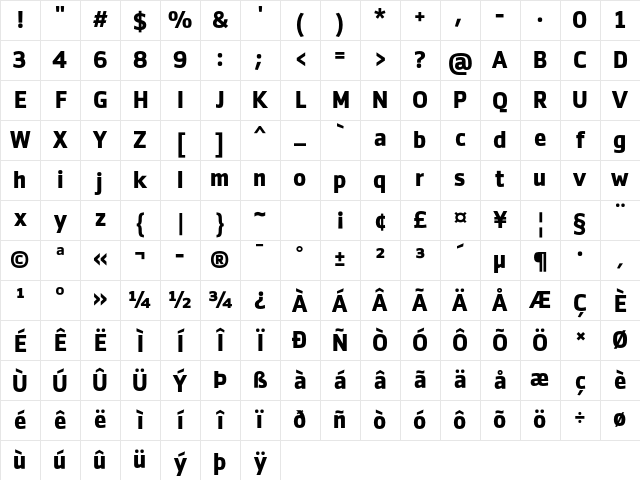
Zemestro Std Bold
Design Context for Zemestro Std
Zemestro Std is a composed and adaptable typeface that performs quietly and consistently across a wide range of design contexts. Its bold stroke weight gives it real presence on the page.